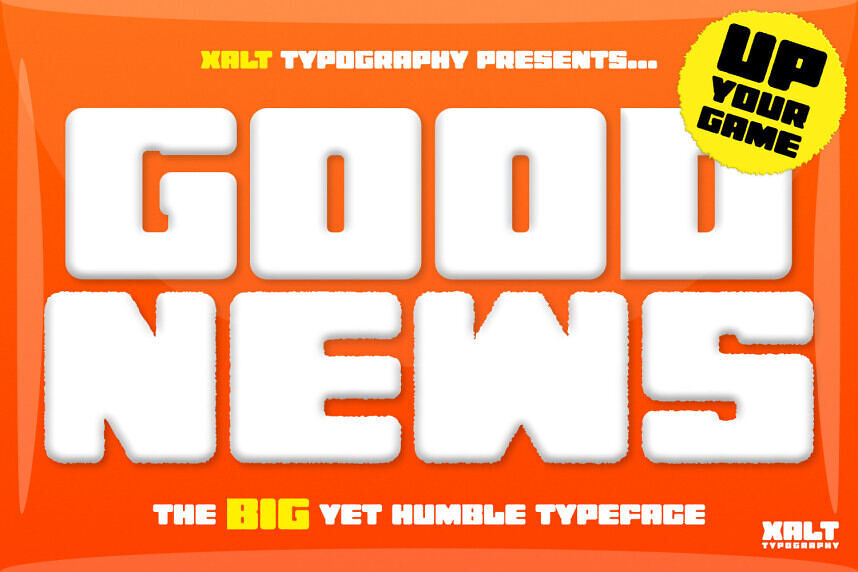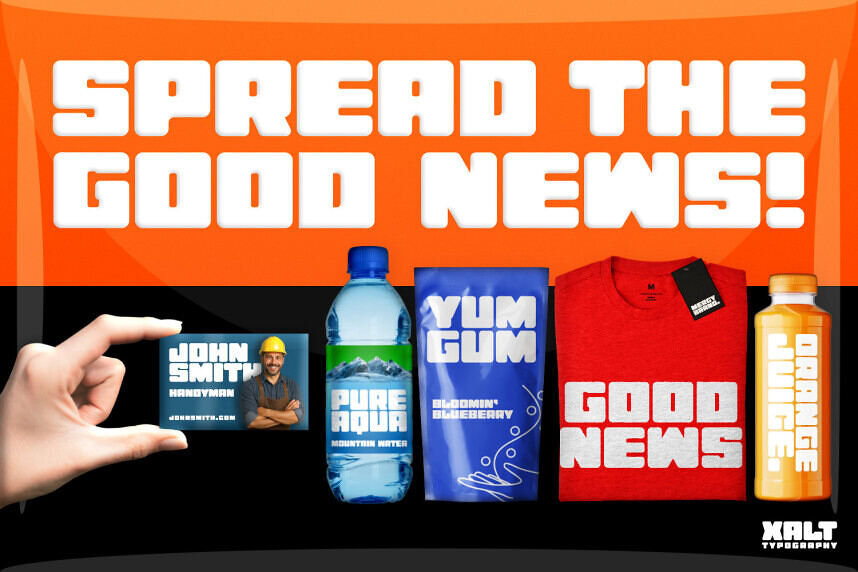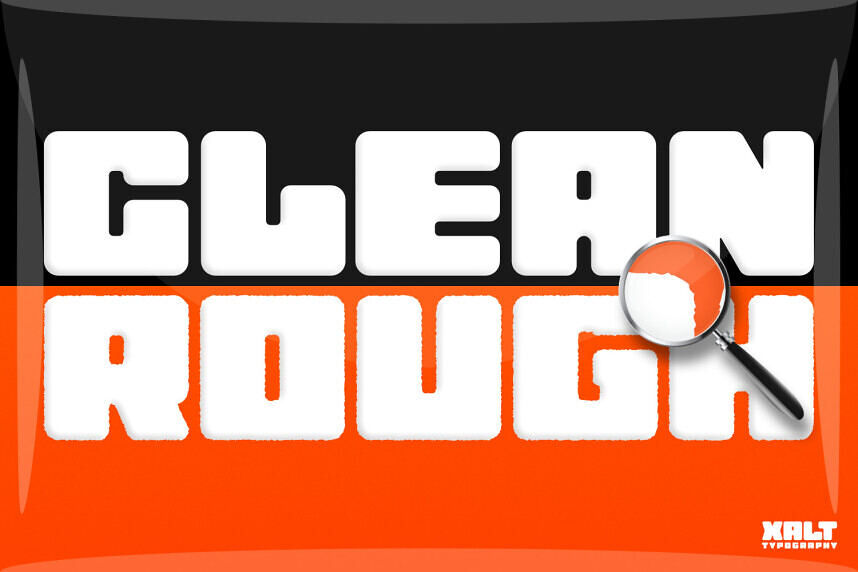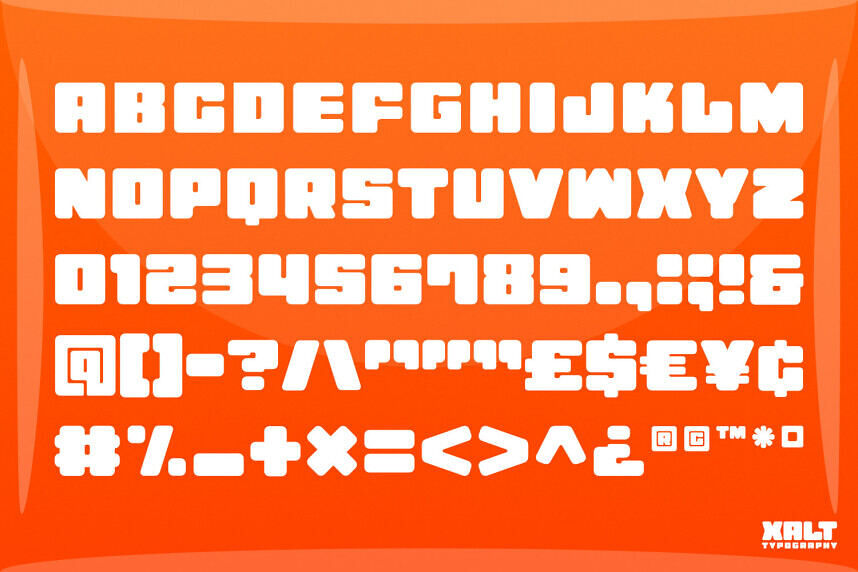
Introducing Good News, a bold yet approachable font perfect for making a statement. With two styles (Regular + Rough) and over 400 glyphs, it offers versatility and supports 15+ languages.
Its modern design features clean curves and consistent spacing, making it suitable for titles, logos, and posters. Good News is ideal for various design projects, from social media to print materials. It’s a great choice for conveying your message with confidence and friendliness.